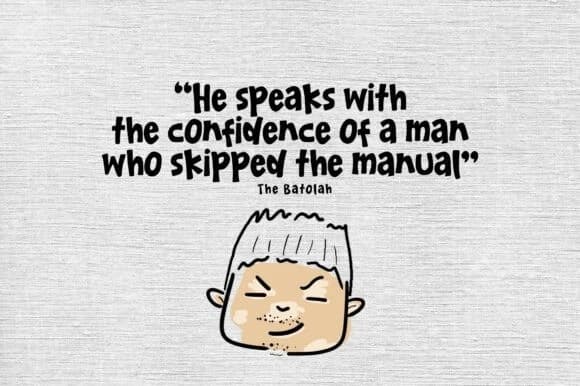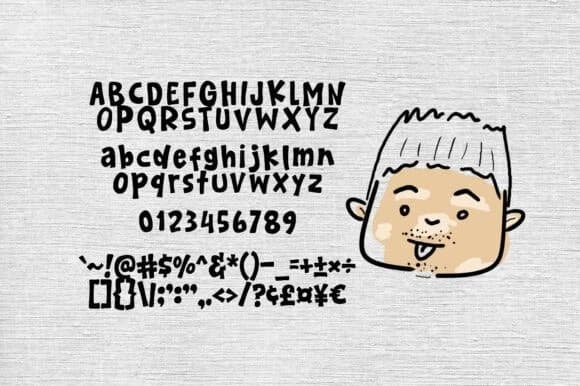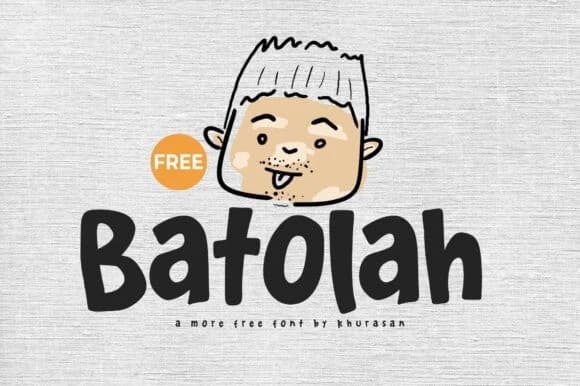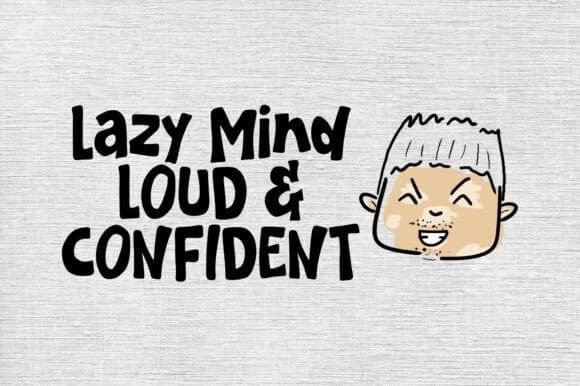
Batolah Playful Font. Inspired by casual doodles and bold marker sketches, this font adds a laid-back, handmade vibe to any design. Whether you’re making a birthday card or a cool t-shirt, Batolah makes it look effortless.